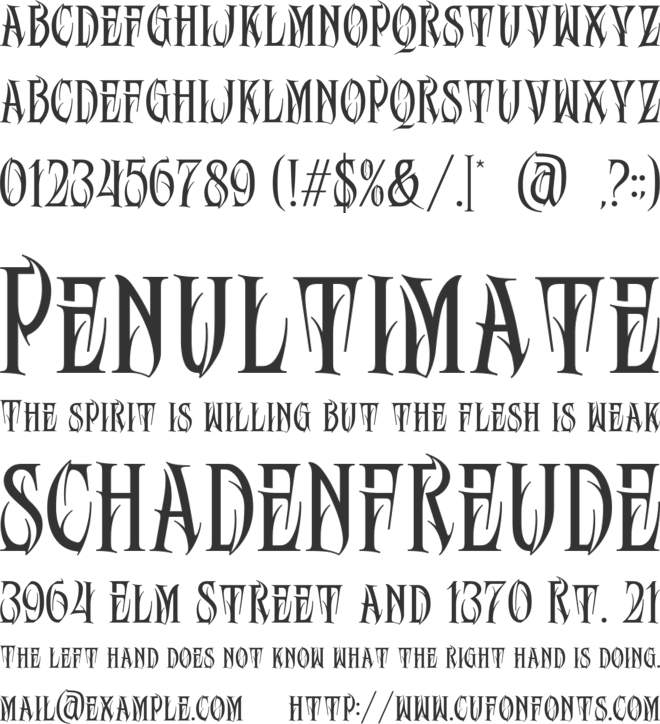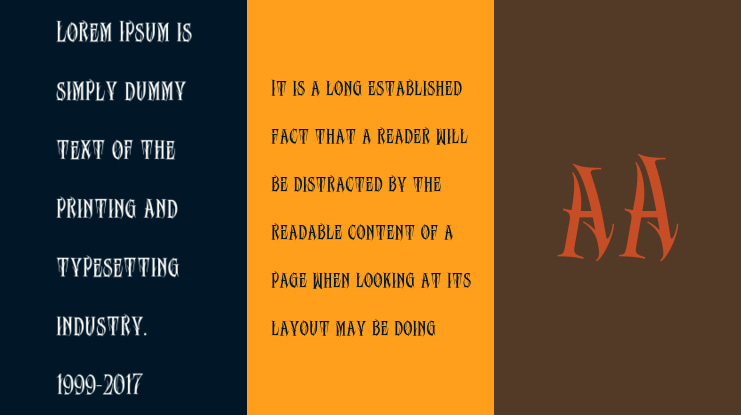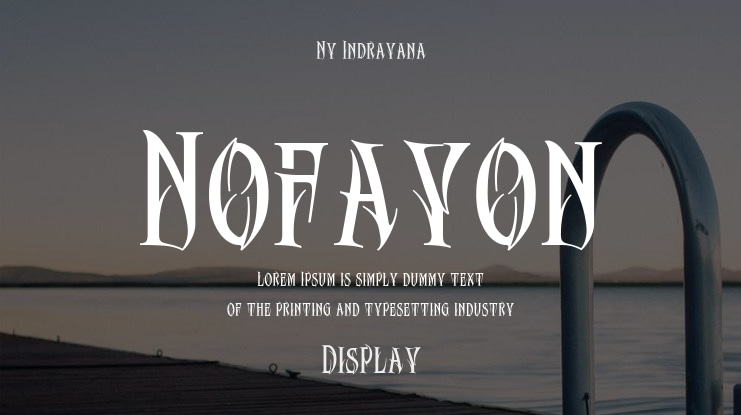
Nofayon Font
Nofayon - Aggressive Gothic Streetwear Typeface
Introducing Nofayon, an aggressive gothic typeface that channels the raw, untamed energy of underground streetwear and dark aesthetics. This font is not for the faint of heart. Inspired by "gothical streetwear design," Nofayon is defined by its unique, thorn-shaped edges that give every character a "violent and aggressive" feel, perfect for designs that demand to be seen.